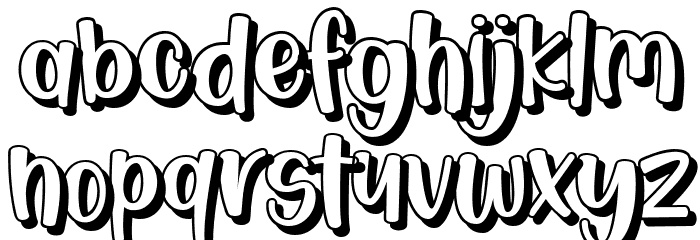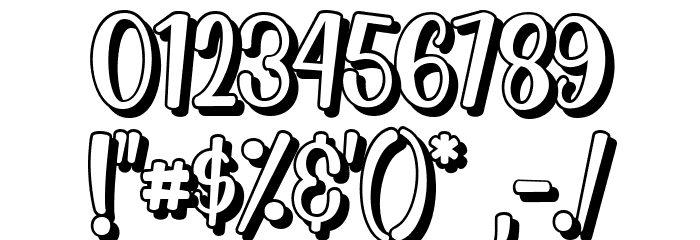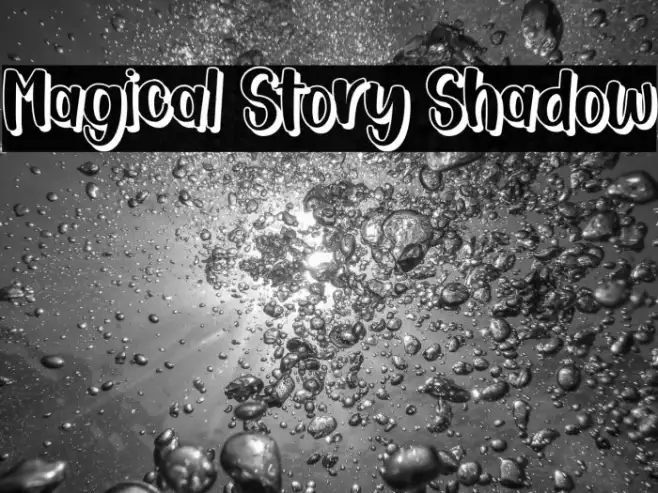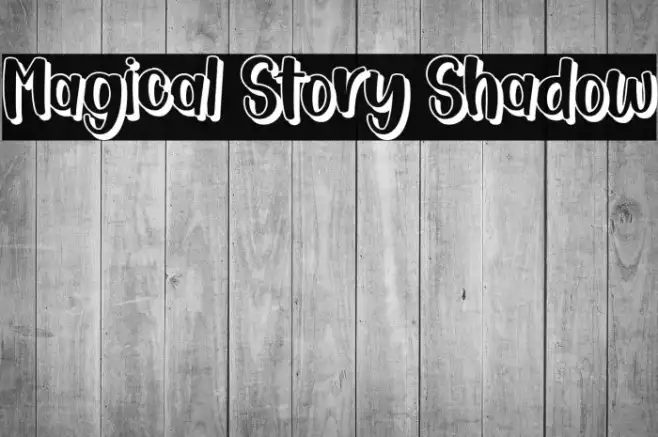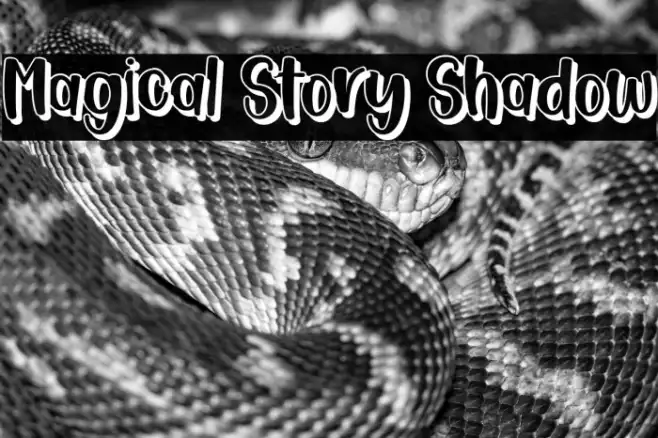
Magical Story Shadow Font
This playful and bold font features a whimsical, hand-drawn style with a shadow effect that adds depth and dimension. The characters are rounded and slightly irregular, giving them a friendly and approachable appearance. The uppercase and lowercase letters maintain a consistent style, with exaggerated curves and a lively, animated feel. The numbers and special characters are equally expressive, making this font suitable for creative and fun projects. Its unique shadow effect enhances its visual appeal, making it stand out in any design.
A playful, bold font with a hand-drawn style and shadow effect.
- Font: Magical Story Shadow
- Proposed Projects: Ideal for children's books, playful branding, posters, and creative invitations.
- Overall Style: Playful, Whimsical